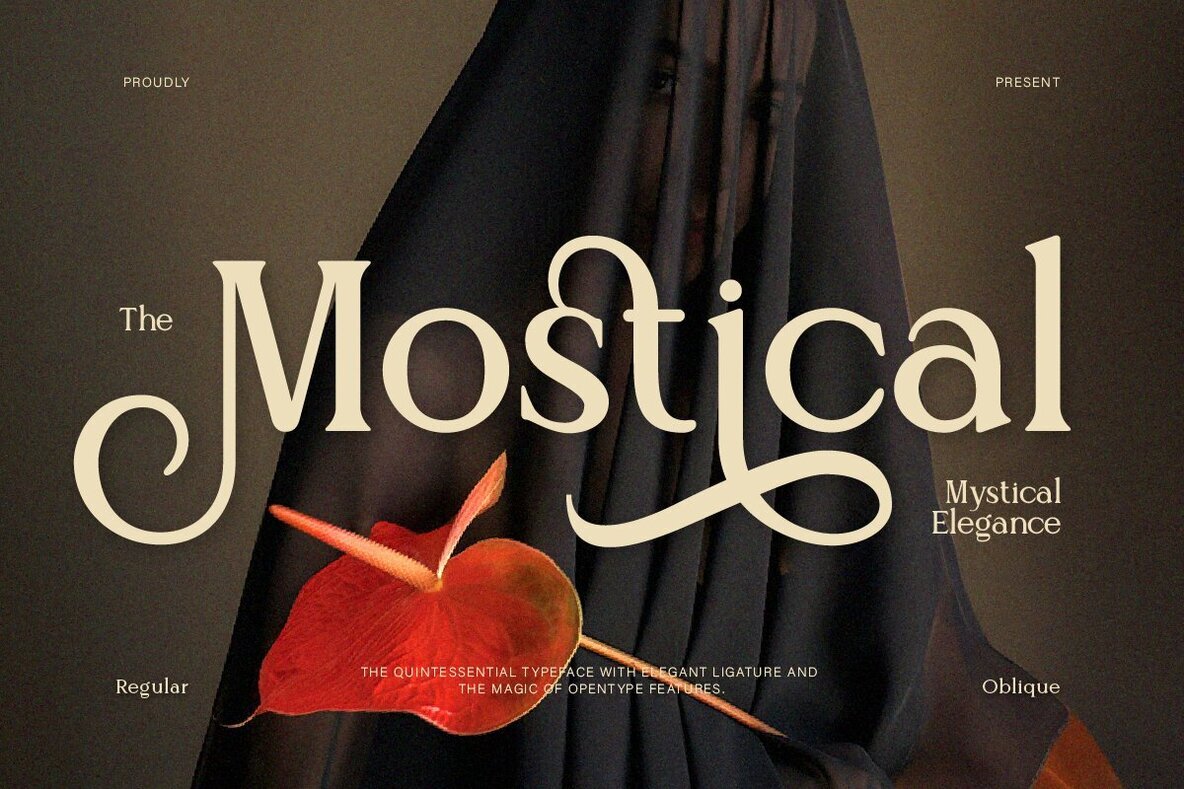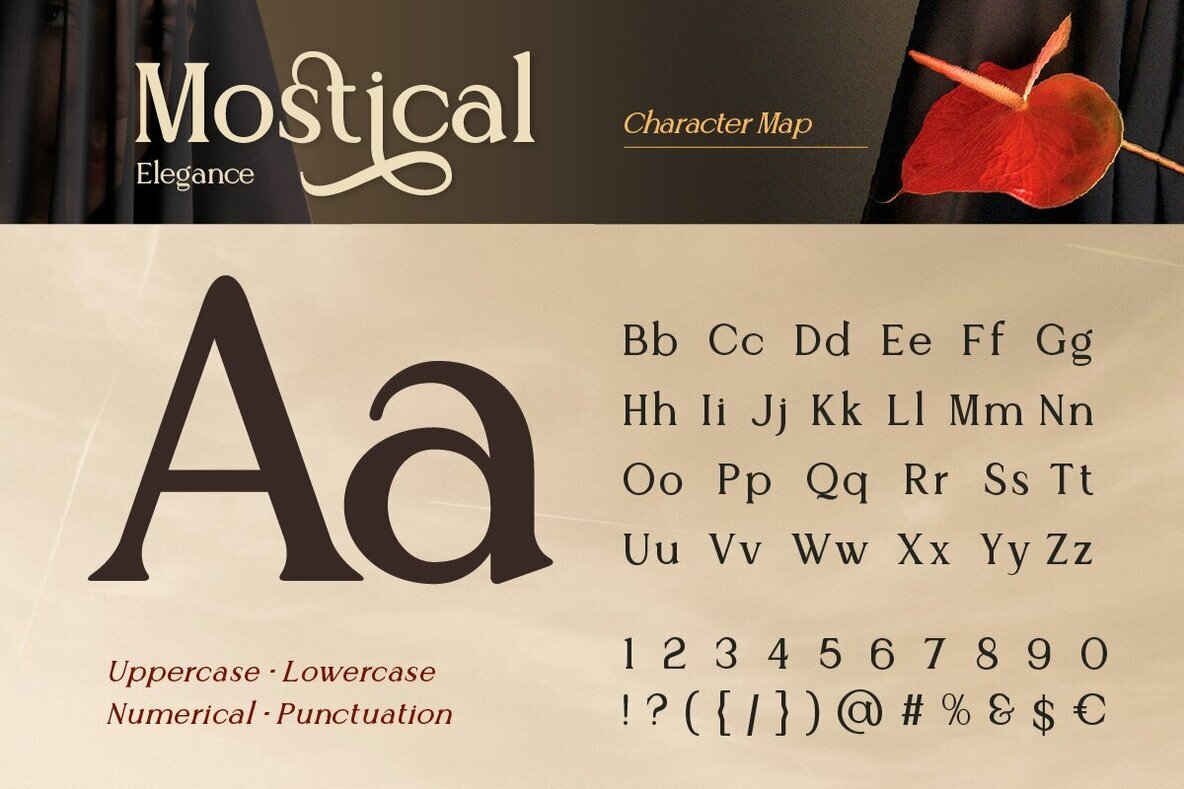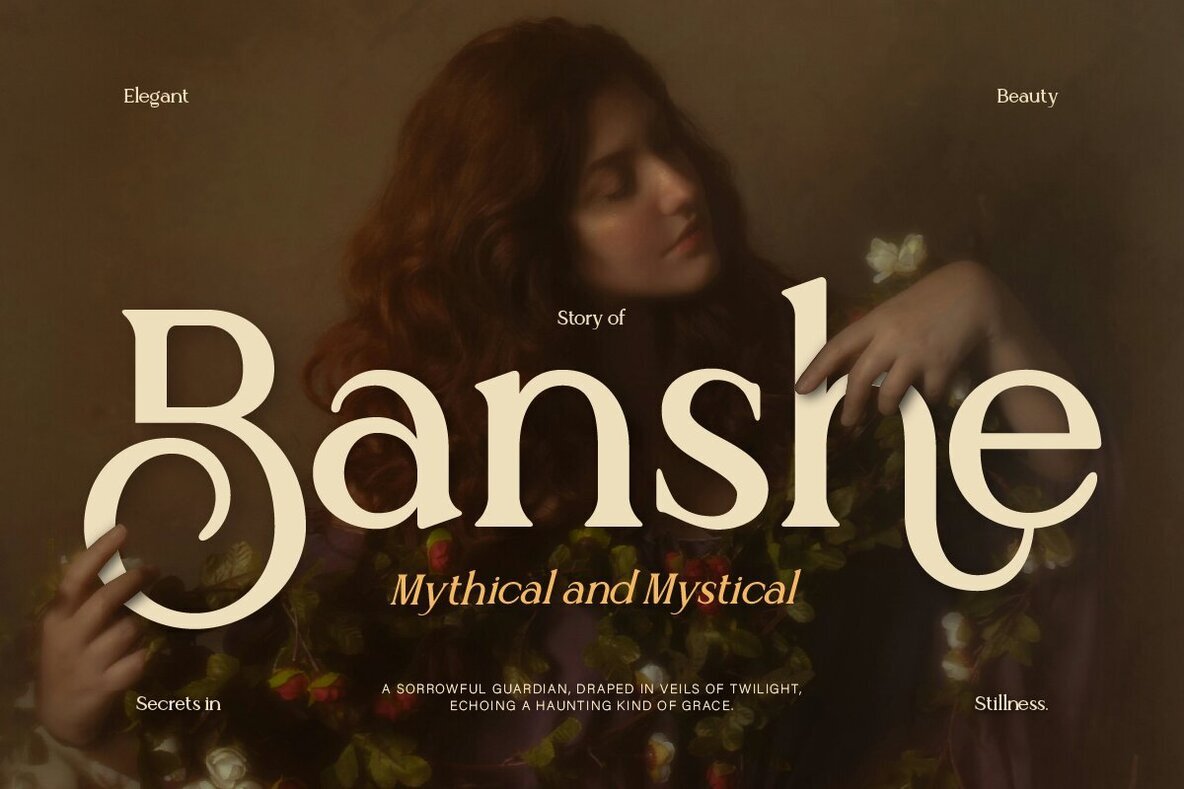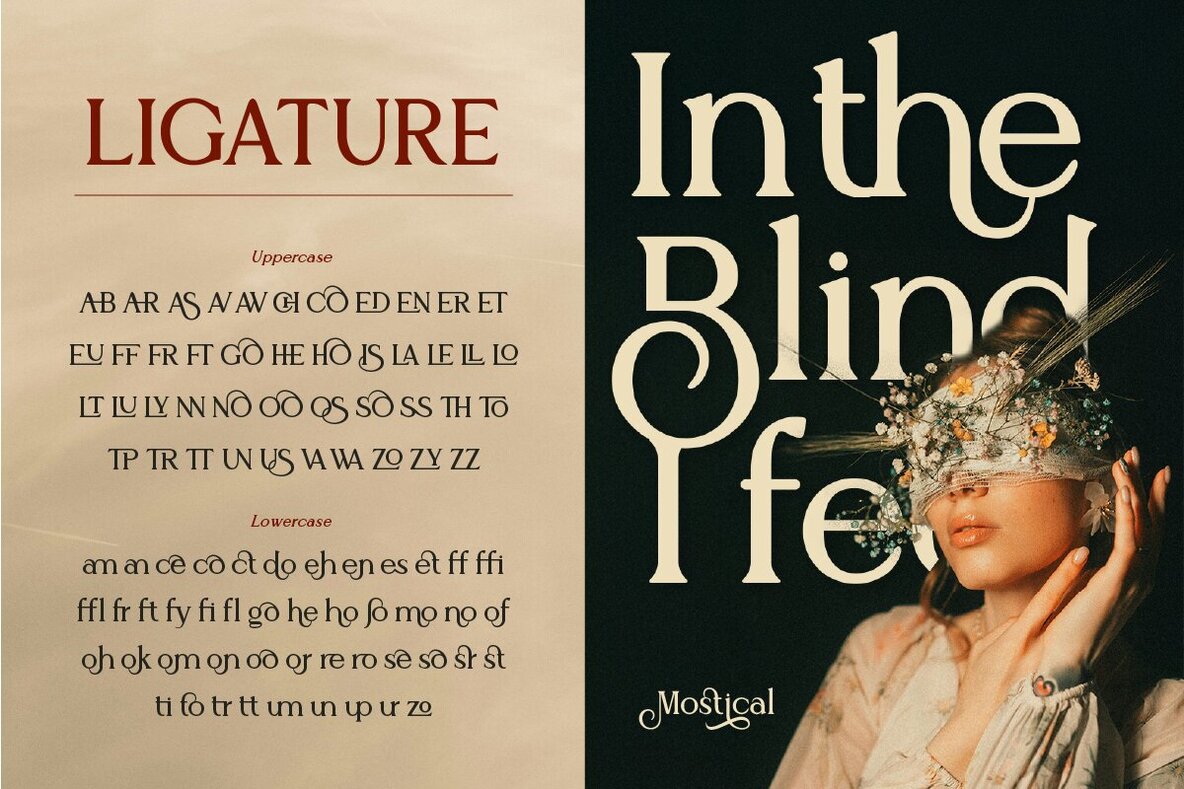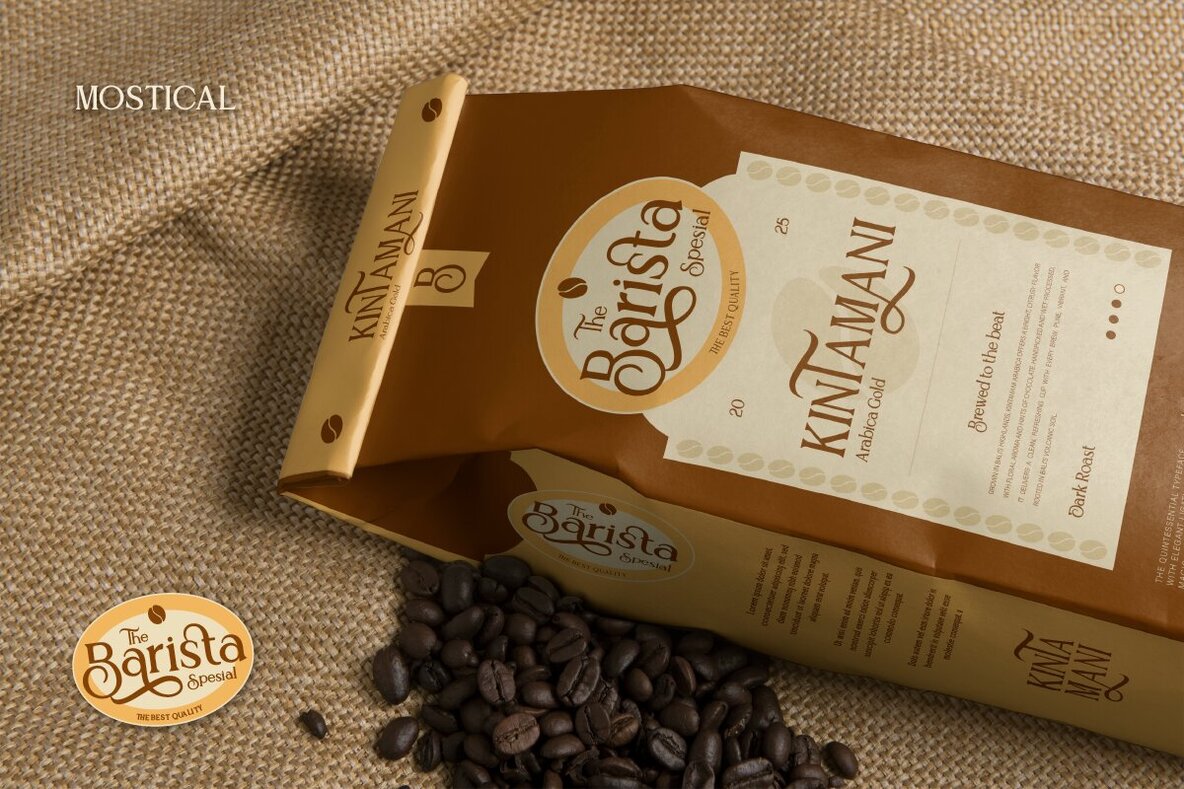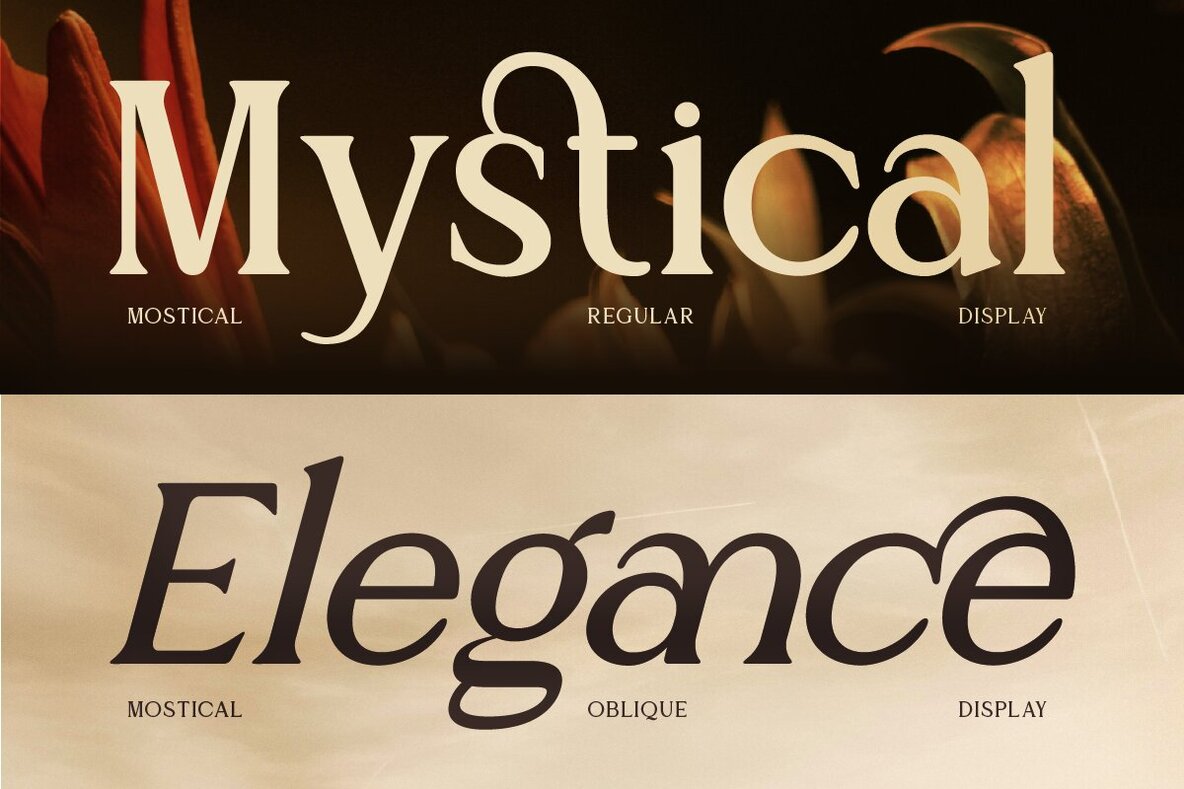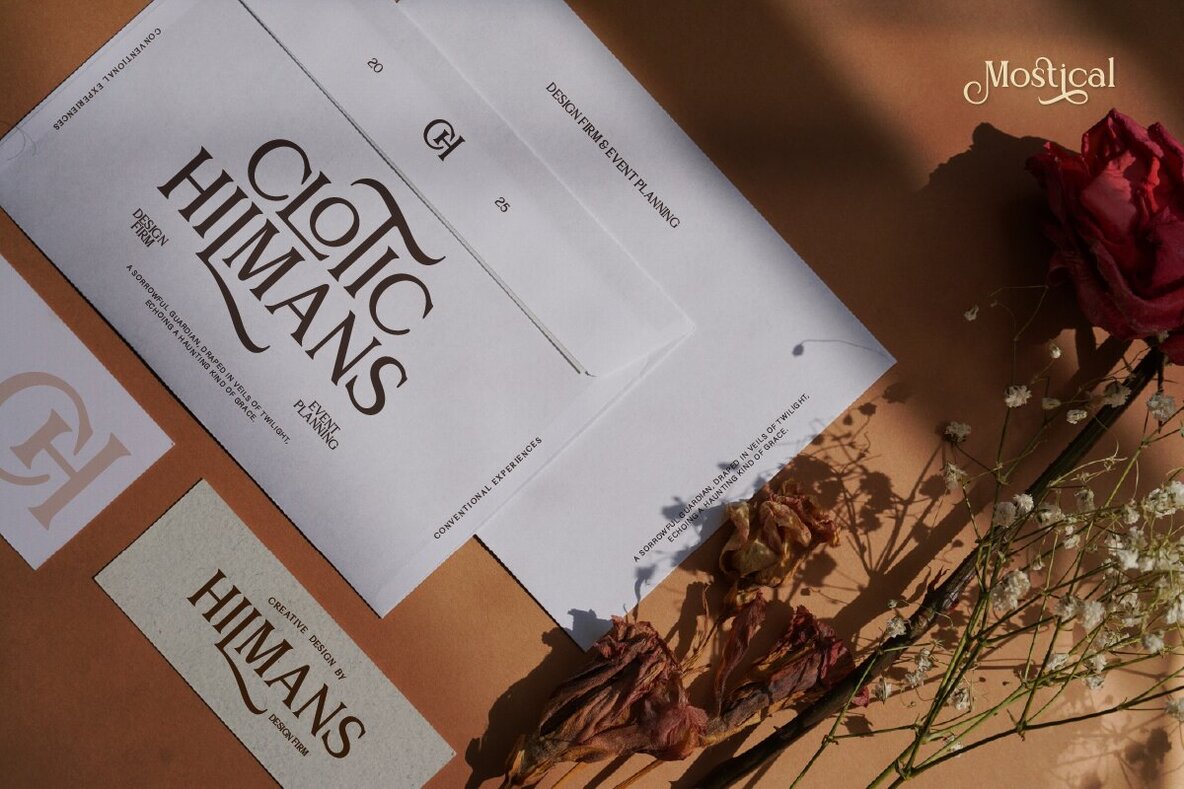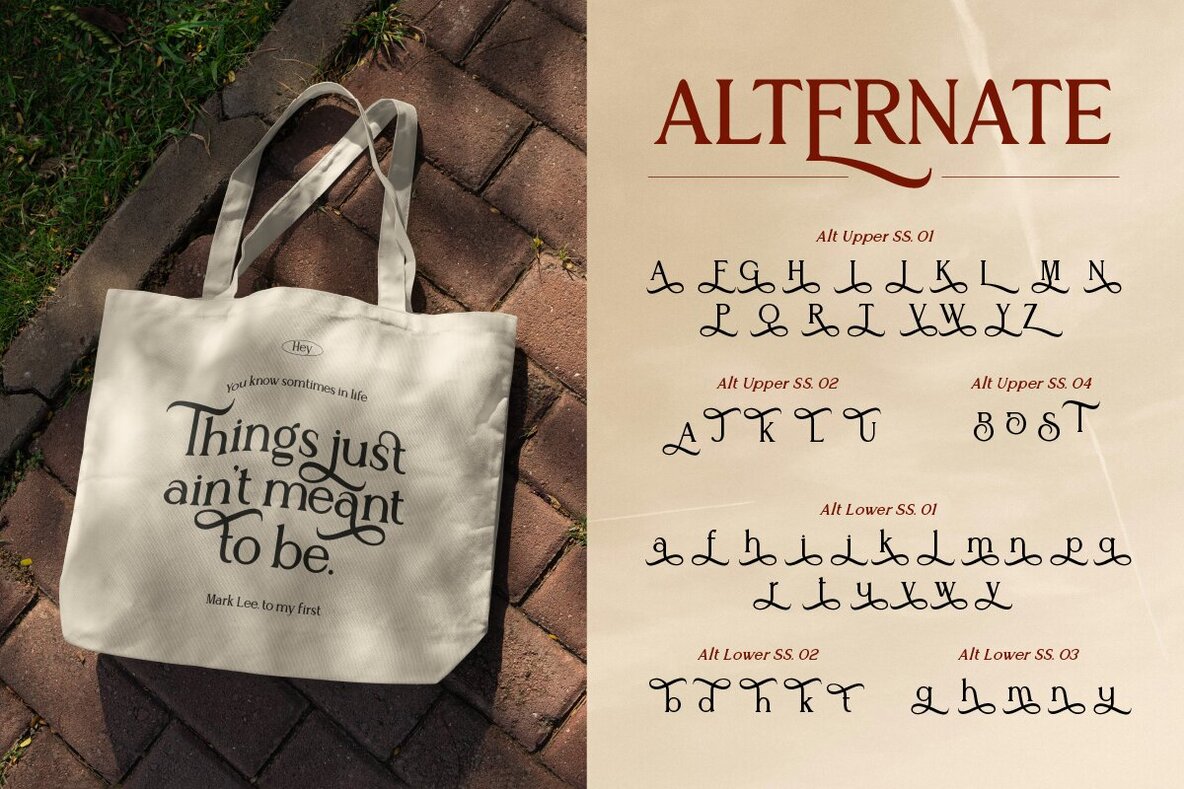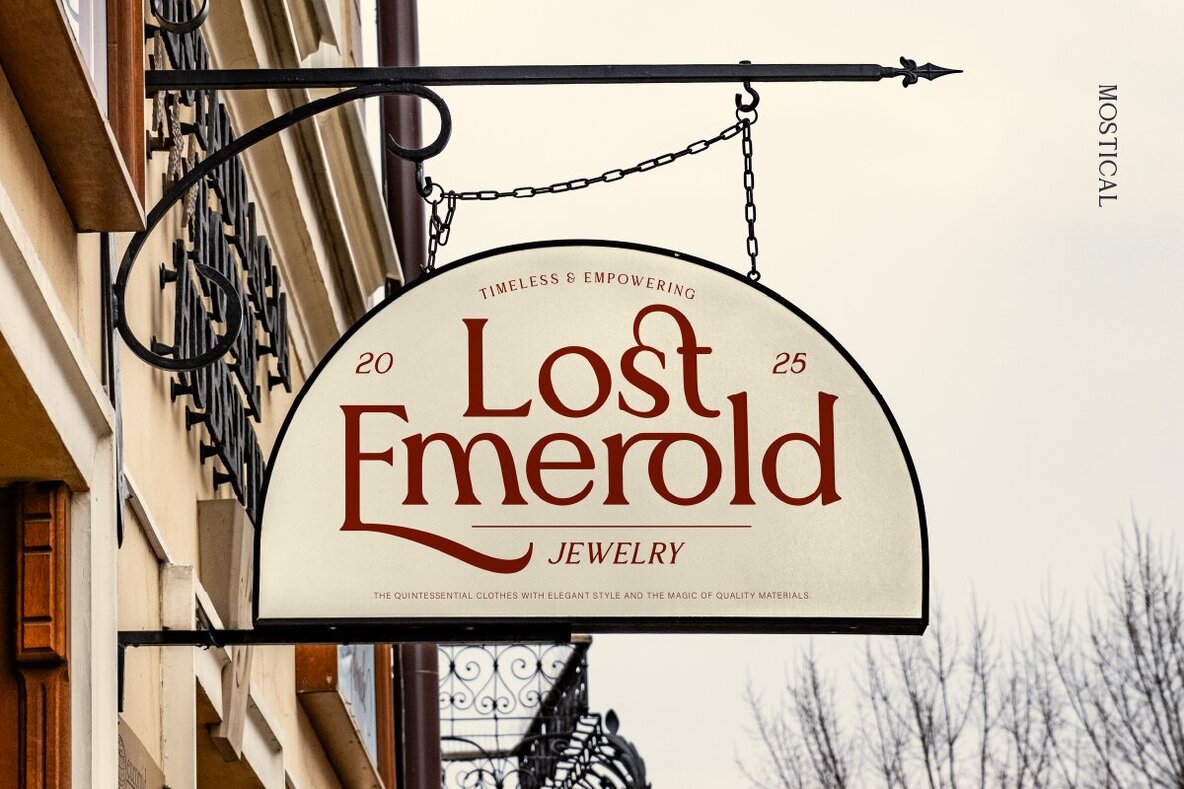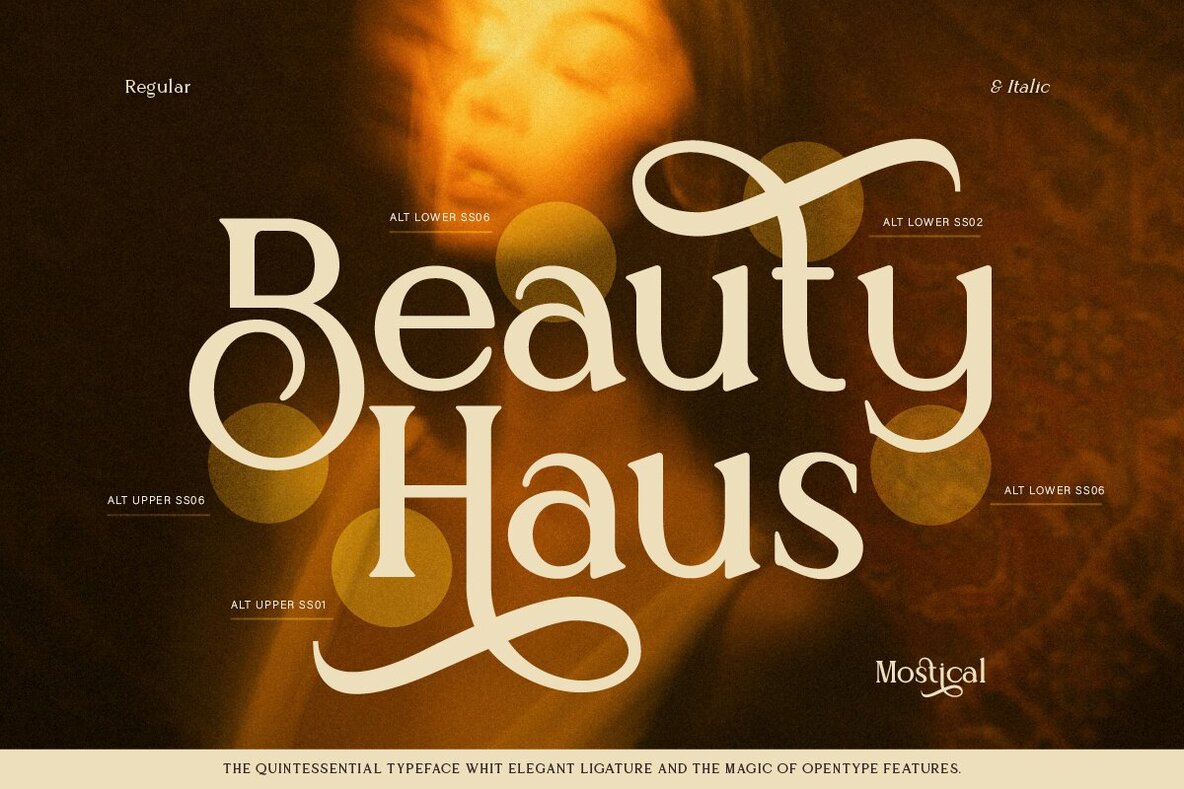
Mostical Font
Mostical Regular
Mostical Oblique
Step into a world of elegance and magic with the Mostical serif font. Designed in two captivating styles—Regular and Oblique—it's the perfect addition to give your projects a touch of class and artistry. Rich in beautiful ligatures and graceful alternates, Mostical effortlessly adds a timeless, luxurious charm to any creation. Whether you're crafting luxury branding, fashion logos, editorial layouts, or wedding invitations, Mostical brings a perfect blend of elegance, mystical vibes, and a hint of drama. It's also ideal for high-end packaging, ensuring your designs stand out with sophistication.Embrace the Mystique with Mostical